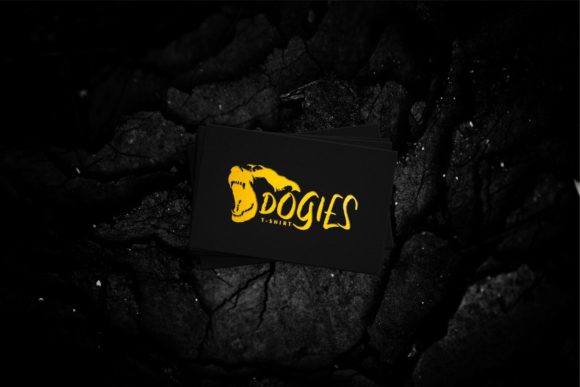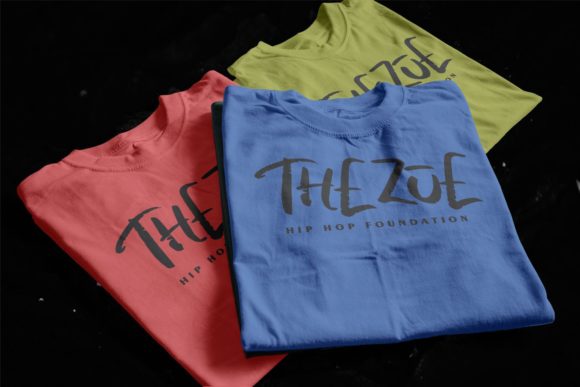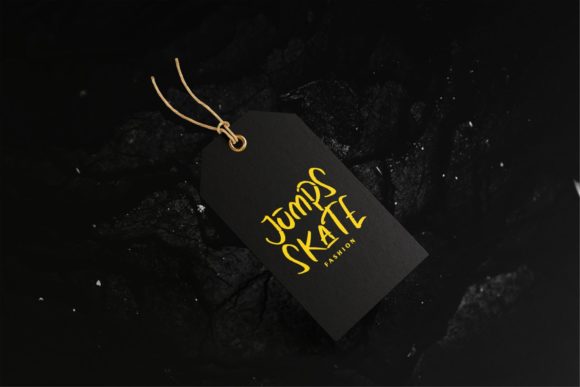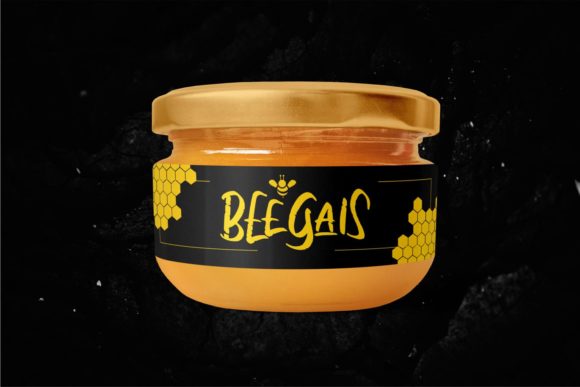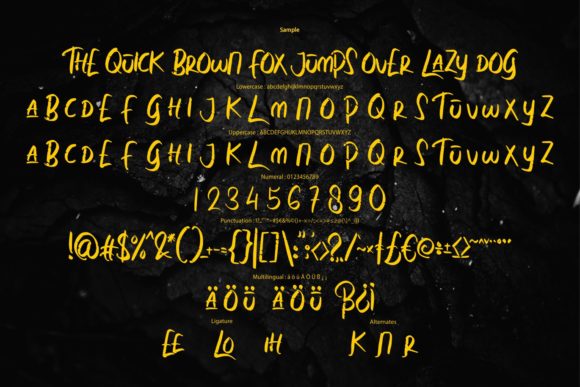
Introduction to Quick Brown Font Font
Fonts play a crucial role in design, and the Quick Brown Font font is a typeface that brings both character and versatility to any project. Whether you’re working on a branding project, a website, or a print design, the Quick Brown Font font offers a unique style that can elevate your work.
Quick Brown is a bold and assertive display font.
Paint brushed and urban styled, this font will make each of your designs look great .
Key Features of Quick Brown Font Font
Why Choose Quick Brown Font Font?
The Quick Brown Font font is more than just a typeface – it’s a design tool that helps you communicate your message with style and clarity. Its unique character set and versatile design make it suitable for a wide range of applications, from elegant invitations to bold headlines.
With its carefully crafted letterforms and balanced proportions, the Quick Brown Font font ensures readability and visual appeal across all mediums.
What makes Quick Brown Font font special?
The Quick Brown Font font stands out with its unique design, exceptional readability, and versatility across various design applications.